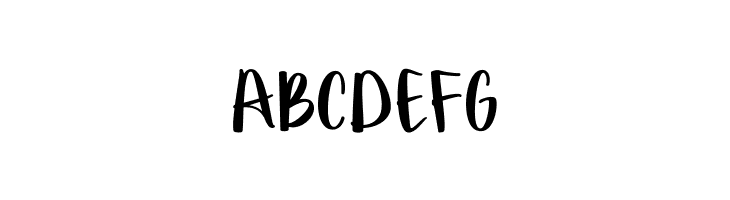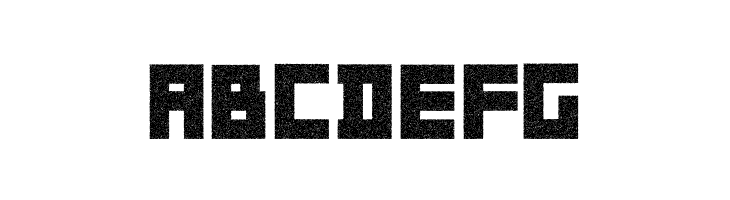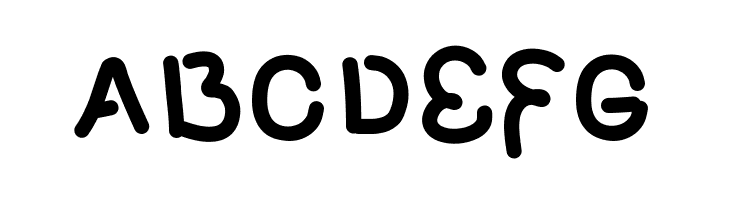
A bold, geometric font with a futuristic and industrial design.
A playful, hand-drawn font with rounded, bubbly characters.
A classic serif typeface with elegant strokes and balanced proportions.
A bold, rounded font with a modern and playful style.
A bold, outlined font with a modern, geometric style.
A bold, italicized font with a three-dimensional outlined style.
A playful, bold handwritten font with dynamic strokes.
A bold, brush-style font with a hand-painted, artistic look.
A dynamic and flowing script font with elegant curves and smooth connections.